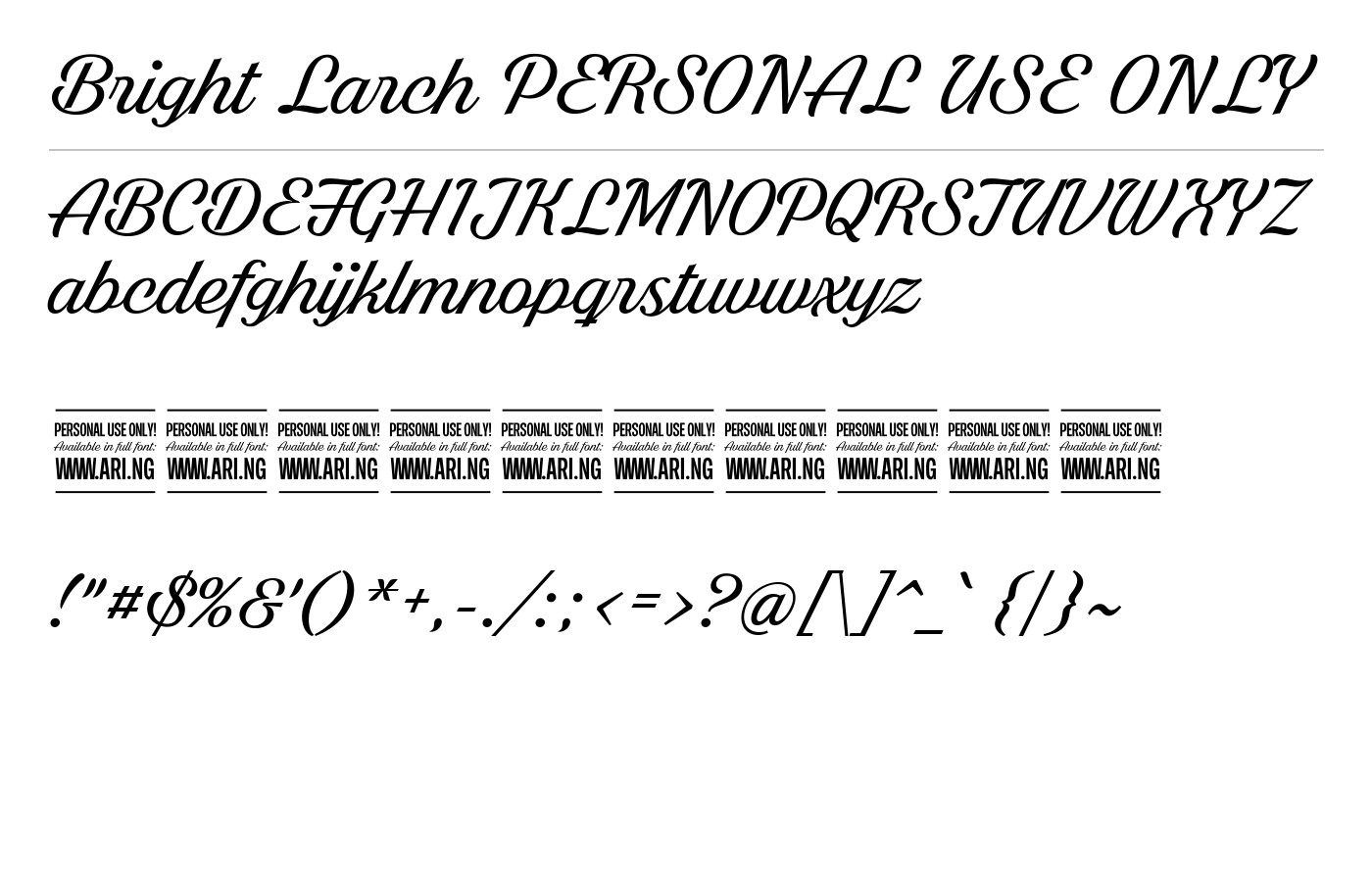
Bright Larch is an elegant script font characterized by its fluid, calligraphic strokes and moderate contrast between thick and thin lines, giving it a graceful and refined appearance. Its slightly condensed letterforms and distinctive, looping terminals create a sophisticated yet approachable style ideal for invitations, branding, and decorative headlines where a touch of classic charm is desired. This font works best in display uses where its stylish flair can enhance a luxurious or vintage mood without sacrificing readability.
Bright Larch PERSONAL USE ONLY Font
About Bright Larch PERSONAL USE ONLY Font